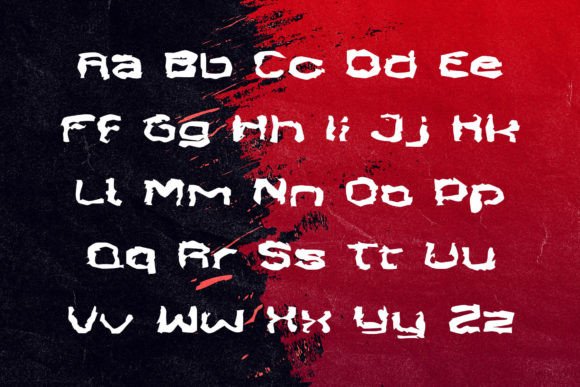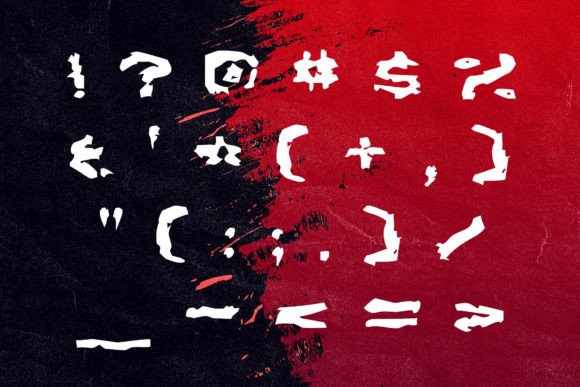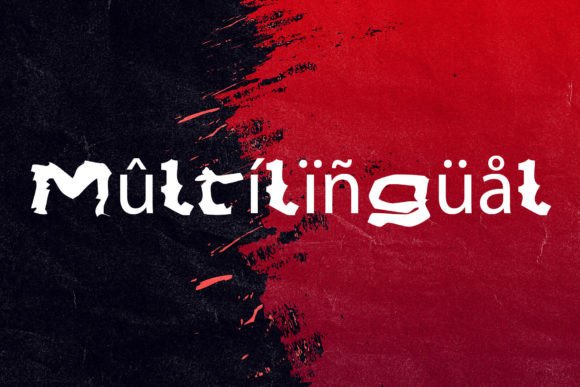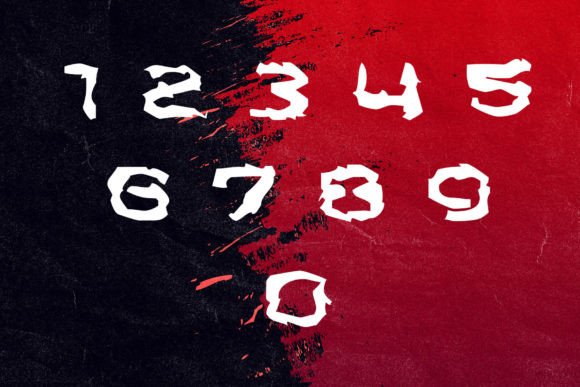
The Designer’s Delight: Clean Mess Font
I’ll never forget the time I was working on a whimsical branding project for a trendy craft brewery. My client wanted a font that was both quirky and sophisticated, but I was struggling to find the perfect fit. That’s when I stumbled upon Clean Mess Font, and it instantly became the star of the show. In this article, I’ll share my love for this unique display font, its features, and how to make the most of it in your designs.
Clean Mess Font has quickly become a favorite in my design arsenal, but like any font, it’s not without its quirks. Here’s the lowdown:
- ✨ Unique blend of messy and clean aesthetic
- ✅ Whimsical and quirky personality
- 💡 Excellent for display text, titles, and headings
- 🎨 Highly versatile and pairs well with various design styles
- 🤔 May not be suitable for body text or small font sizes due to its bold and playful nature
- ⚠️ Limited use of OpenType features, but still offers some stylistic alternates
Clean Mess Font was created by a talented designer who wanted to craft a font that was both playful and sophisticated. The designer’s inspiration came from a mix of street art, graffiti, and traditional typography. The result is a font that’s perfect for designers who want to add a touch of whimsy to their creations.
| Font Name | Clean Mess Font |
| Author | denestudios |
| What is Clean Mess Font best used for? | Clean Mess Font is ideal for display text, titles, and headings. Its unique blend of messy and clean aesthetic makes it perfect for creative projects, such as branding, packaging, and advertising. |
| Is Clean Mess Font suitable for body text? | No, Clean Mess Font is not recommended for body text due to its bold and playful nature. It’s best used for display purposes only. |